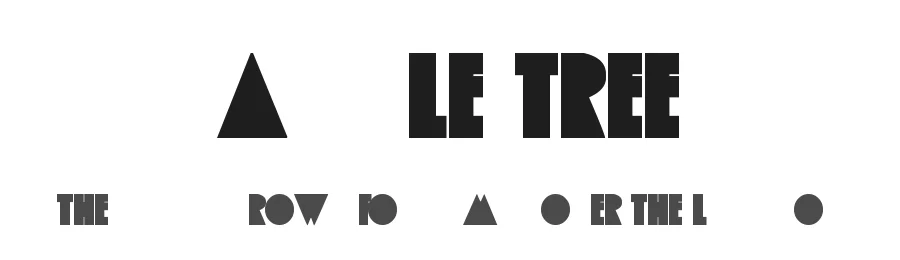
Arenq Font
* This font has Stilystic Alternates that you can use in programs like Photoshop, Illustrator, InDesign and many others...
The font Arenq was designed by Paulo R in 2014.
| Designer | Paulo R |
Arenq Font is a decorative font that shines as a display or heading face. Pair it with a clean sans-serif or serif font for body text β the contrast creates a clear hierarchy while the two styles stay balanced and easy to read.